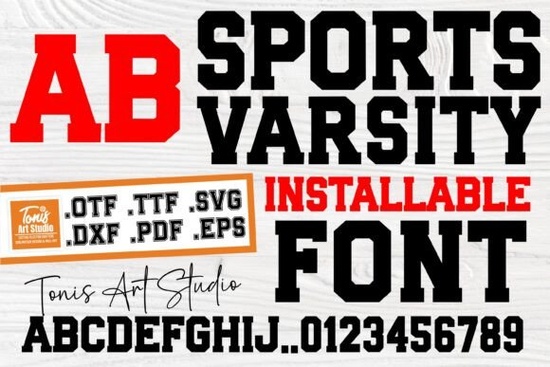
If you're looking to add a sporty and energetic feel to your designs, the Sports Varsity Font is a great choice. This font is perfect for sports enthusiasts, college fans, and anyone who wants to infuse their projects with a classic athletic vibe. Whether you’re designing team gear, spirit wear, or just adding a touch of nostalgia to your creations, this versatile typeface can help you achieve that winning look.
Why Choose the Sports Varsity Font?
The Sports Varsity Font stands out for its clean, bold, and traditional style. It’s reminiscent of the fonts you might see on college jerseys or high school letterman jackets, making it ideal for projects that need a familiar, yet impactful, visual. Here are a few reasons why this font is a popular choice:
- Versatility: Use it for a wide range of projects, from custom t-shirts and mugs to posters and banners.
- Authentic Look: The font captures the essence of classic varsity letters and numbers, giving your designs an authentic, nostalgic feel.
- Easy to Use: Even if you’re not a design expert, this font is straightforward to incorporate into your projects, making it accessible for both beginners and experienced designers.
How to Use the Sports Varsity Font in Your Projects
Incorporating the Sports Varsity Font into your designs can be as simple as choosing the right project and applying the font. Here are some practical tips to get you started:
- Choose the Right Project: Think about the type of project you want to create. Are you designing for a sports event, a school fundraiser, or a personal gift? The Sports Varsity Font works well for all these and more.
- Select Complementary Fonts: To make your design stand out, consider pairing the Sports Varsity Font with other complementary fonts. For example, you could use a more elegant font like Cormorant Garamond for a sophisticated touch, or a fun, quirky font like Funky Grunge to add a playful element.
- Play with Colors and Textures: Experiment with different color schemes and textures to enhance the overall look of your design. Bold, vibrant colors can give your project a dynamic, energetic feel, while more subtle tones can create a classic, timeless appearance.
Real-World Applications of the Sports Varsity Font
The Sports Varsity Font is incredibly versatile and can be used in a variety of real-world applications. Here are a few examples:
- Custom Team Gear: Design personalized jerseys, hats, and bags for your favorite sports teams. The font’s bold and clear style makes it easy to read, even from a distance.
- Spirit Wear: Create spirited t-shirts, hoodies, and accessories for school events, pep rallies, and game days. The font’s classic look will resonate with students, alumni, and fans alike.
- Home Decor: Add a sporty touch to your home with custom wall art, cushions, and mugs. The Sports Varsity Font can bring a sense of energy and enthusiasm to any room.
Tips for Maximizing the Impact of the Sports Varsity Font
To get the most out of the Sports Varsity Font, here are a few additional tips:
- Keep It Simple: Sometimes, less is more. Don’t overcrowd your design with too many elements. Let the font take center stage for maximum impact.
- Test Different Sizes: Play around with the size of the font to find the best fit for your project. Larger sizes can be great for headlines, while smaller sizes work well for subheadings and body text.
- Combine with Graphics: Incorporate sports-related graphics, such as balls, rackets, or team logos, to complement the font and enhance the overall theme of your design.
Conclusion: Adding the Final Touches
With the Sports Varsity Font, you can easily add a touch of athletic charm and nostalgia to your creative projects. Whether you’re designing for a sports event, a school function, or just for fun, this font is a reliable and stylish choice. Remember to keep your design simple, experiment with different elements, and have fun with the process. Happy designing!
Next Steps
Now that you know how to use the Sports Varsity Font effectively, here’s a quick checklist to help you get started:
- Brainstorm project ideas where the Sports Varsity Font can shine.
- Select complementary fonts to pair with the Sports Varsity Font.
- Experiment with different color schemes and textures.
- Create a mockup or prototype of your design.
- Get feedback from friends, family, or colleagues.
- Finalize and publish your design.
By following these steps, you’ll be well on your way to creating standout designs that capture the spirit and energy of the Sports Varsity Font.